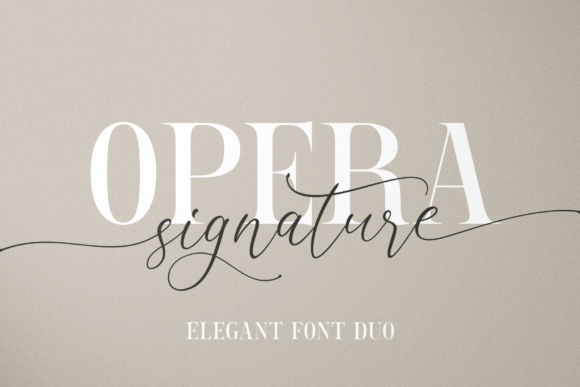
Introducing Opera Signature Font, a captivating and refined duo font designed by the talented Pasha Larin. With its exquisite handwritten and serif styles, this font is the perfect choice for adding an elegant touch to any project, especially wedding invitations.
Opera Signature Font is more than just a stylish addition to your font library; it is a powerful tool that can elevate your creations to new heights. Its versatility allows it to effortlessly enhance any topic or theme, making it a must-have for designers, artists, and creators alike.
One of the standout features of Opera Signature Font is its PUA encoding, which grants you easy access to a wide range of glyphs and swashes. With just a few clicks, you can unleash your creativity and experiment with various design elements, ensuring that your work stands out from the crowd.
Imagine the sheer beauty of personalized wedding invitations adorned with the graceful curves and intricate details of Opera Signature Font. Your guests will be captivated by the romantic and sophisticated atmosphere it creates, setting the perfect tone for your special day.
Not limited to wedding invites, Opera Signature Font can also be applied to a variety of projects, such as branding, logos, packaging, and more. Its timeless and classic appeal will leave a lasting impression, making your designs unforgettable.
Embrace the artistic possibilities and let Opera Signature Font be your creative companion. With its alluring charm and impeccable craftsmanship, your creations will effortlessly mesmerize and inspire. Download Opera Signature Font today and unlock a world of endless design possibilities.